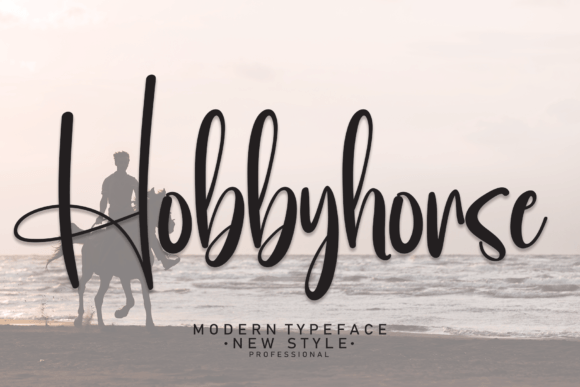
Are you looking for a font that will add a touch of elegance and sophistication to your next project? Look no further than Hobbyhorse Font, the latest masterpiece from the renowned font designer, Roronoa zoro!
Crafted with painstaking attention to detail, the Hobbyhorse Font family exudes a unique charm that will elevate your words to new heights. Its exquisite script style is reminiscent of the flowing penmanship of a seasoned calligrapher, adding a touch of warmth and personality to your creations.
Whether you're designing wedding invitations, crafting social media posts, or creating eye-catching advertisements, Hobbyhorse Font is the perfect choice to make your words stand out. It's a versatile font that can be dressed up or down to suit any occasion, making it a must-have for any designer's toolkit.